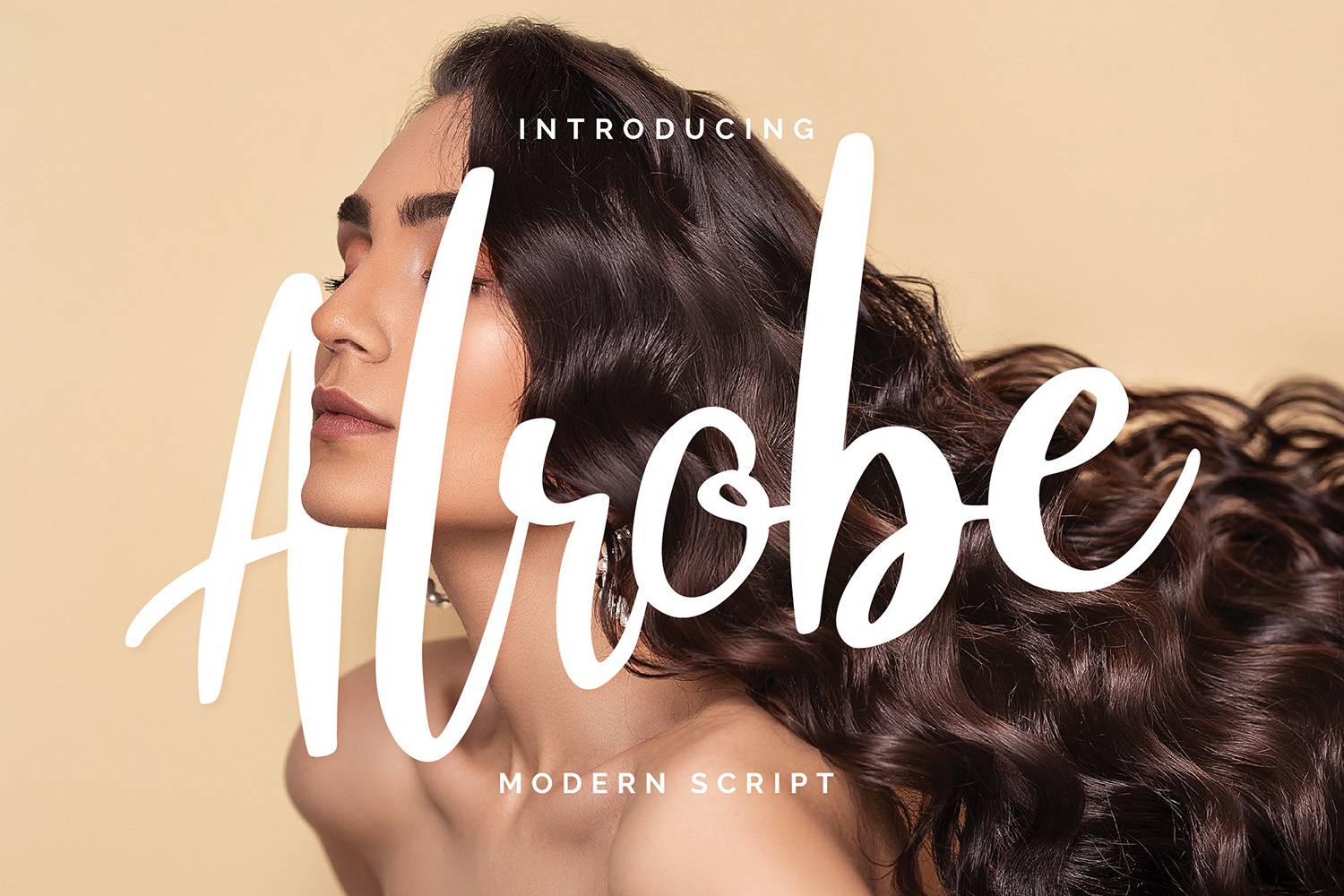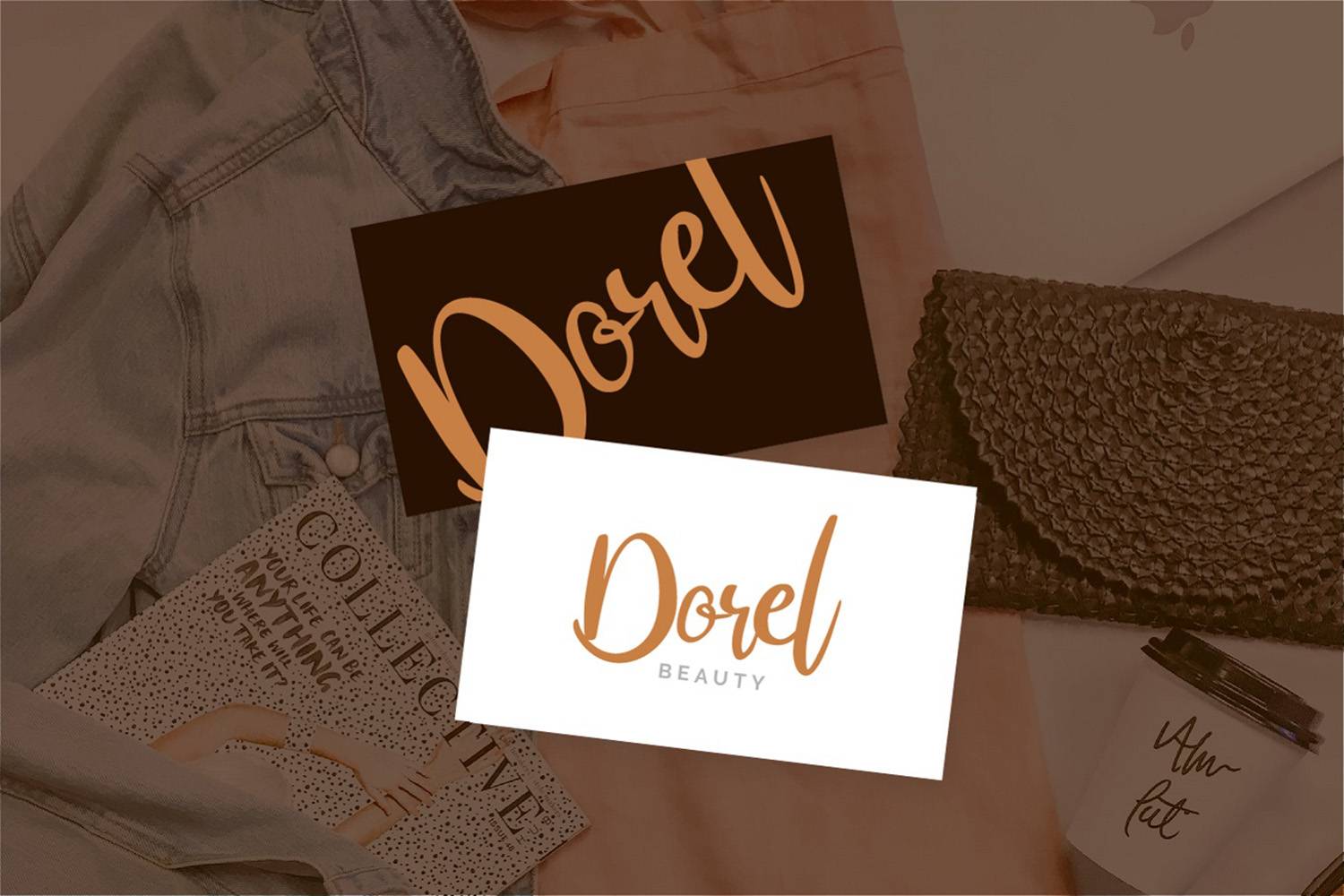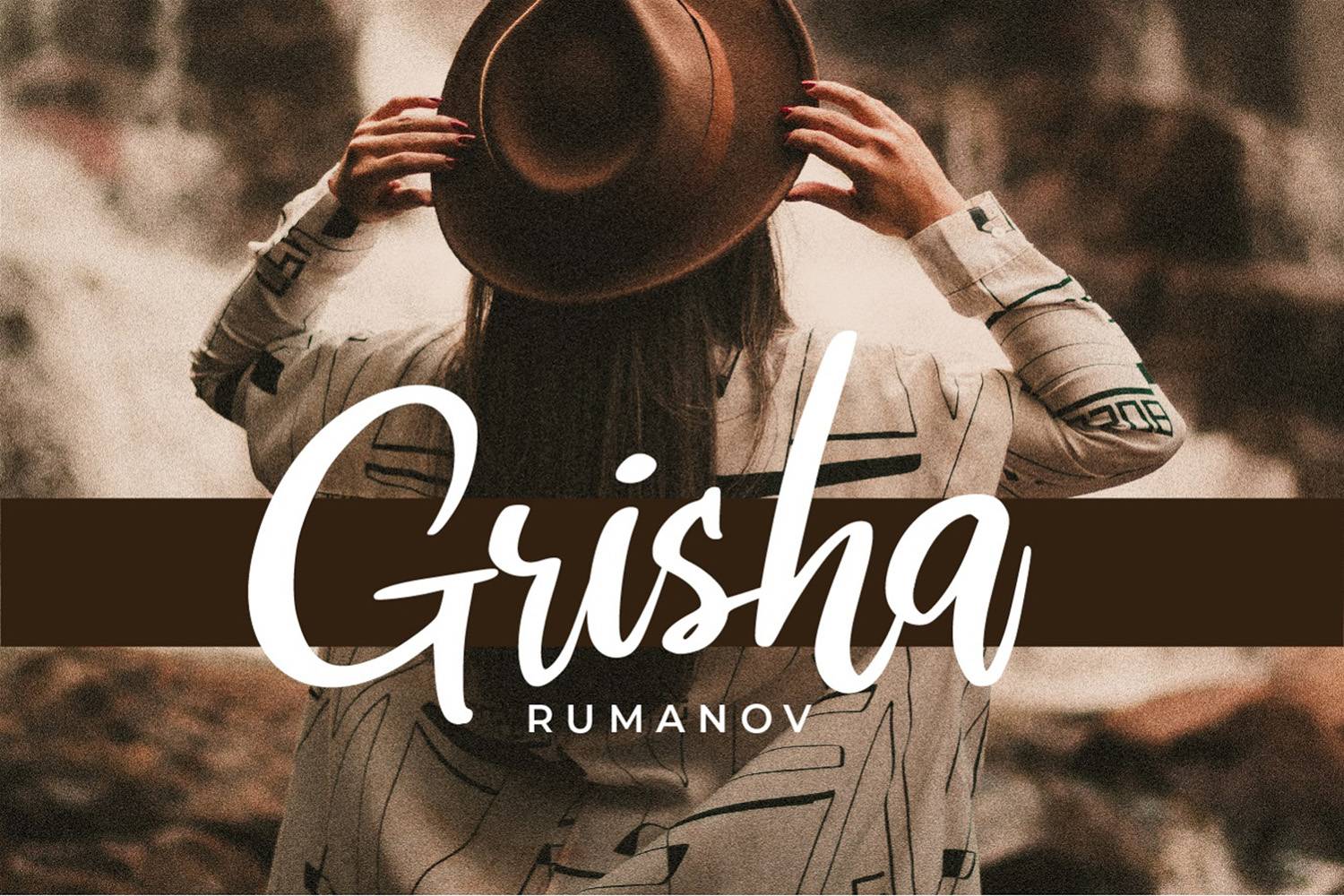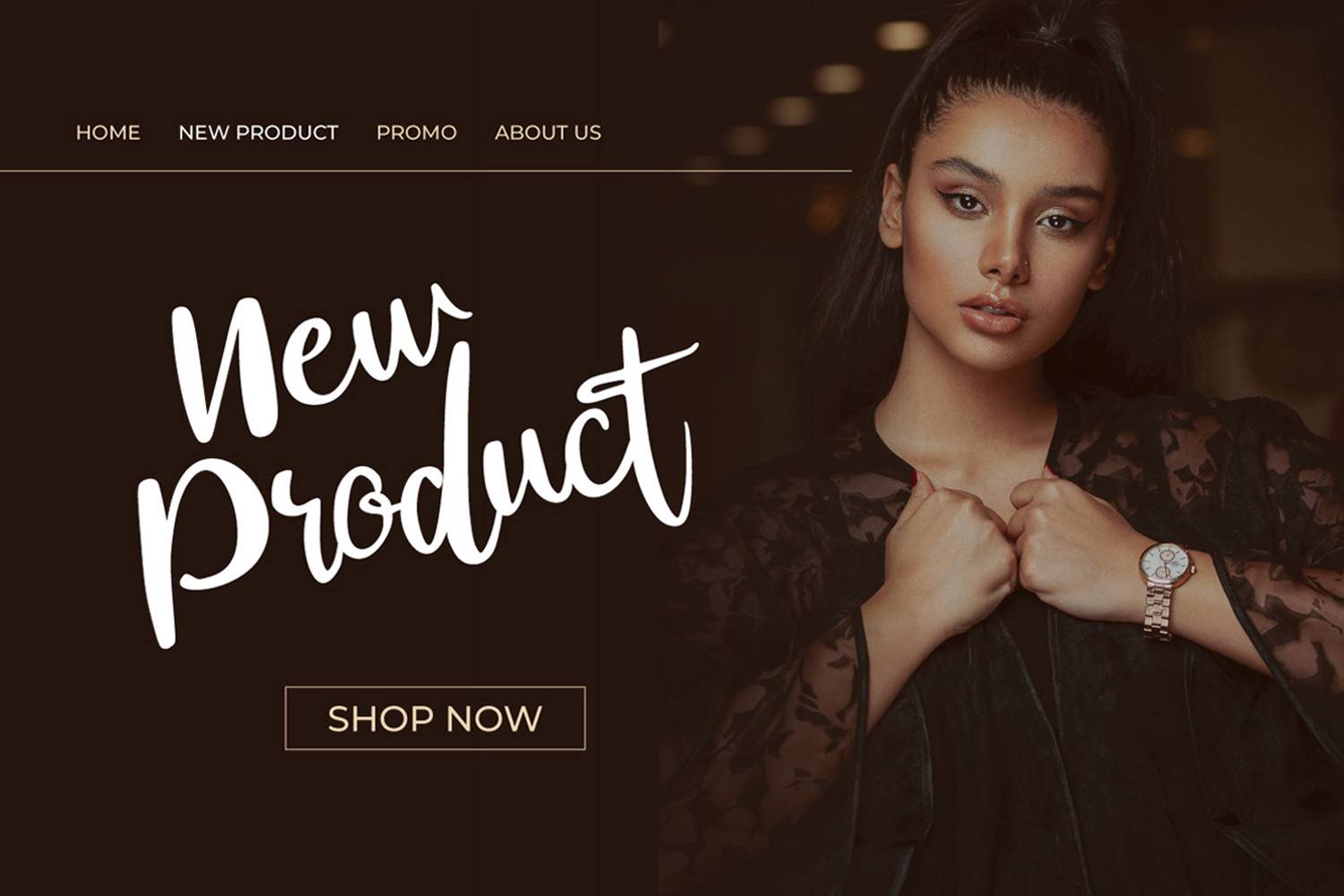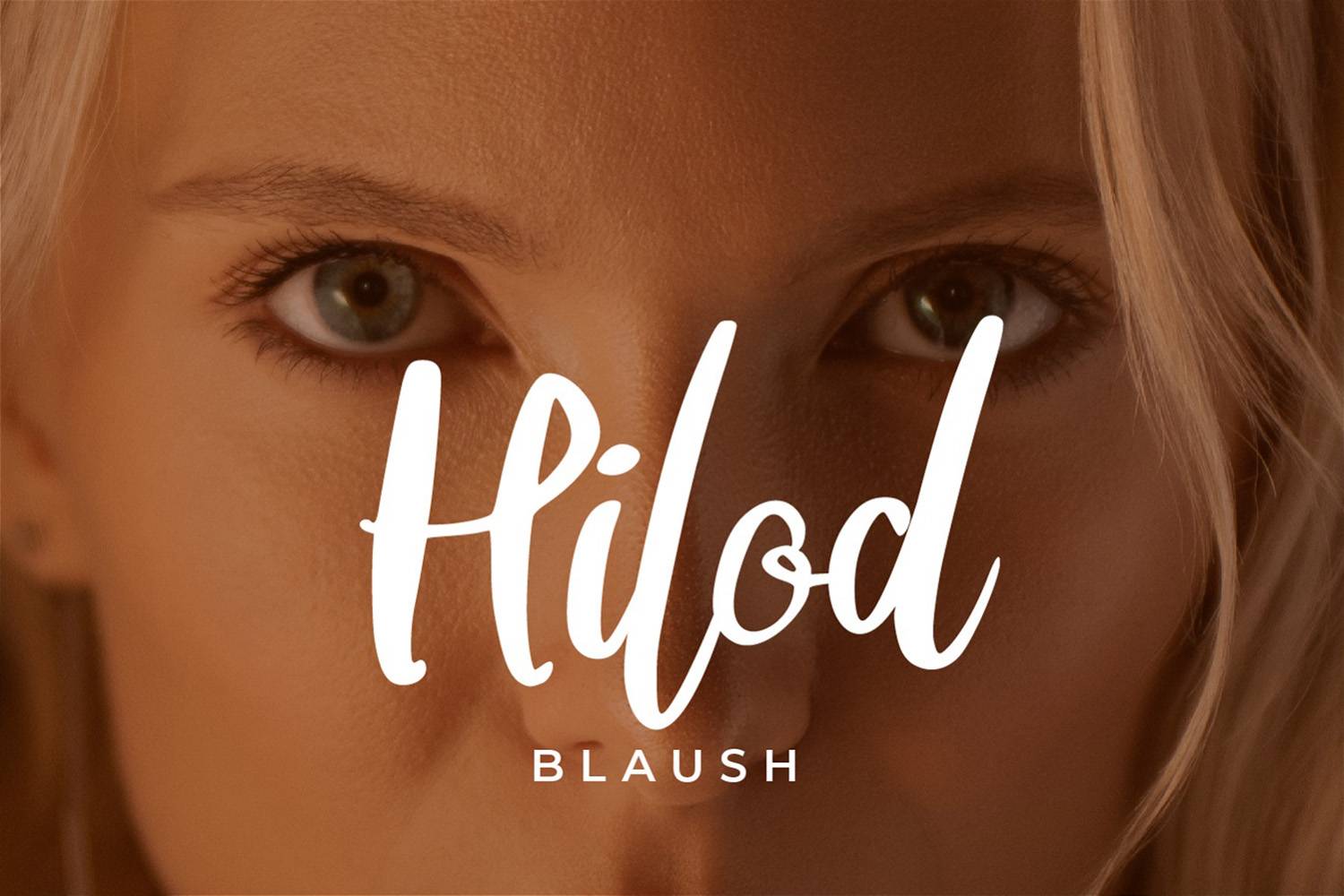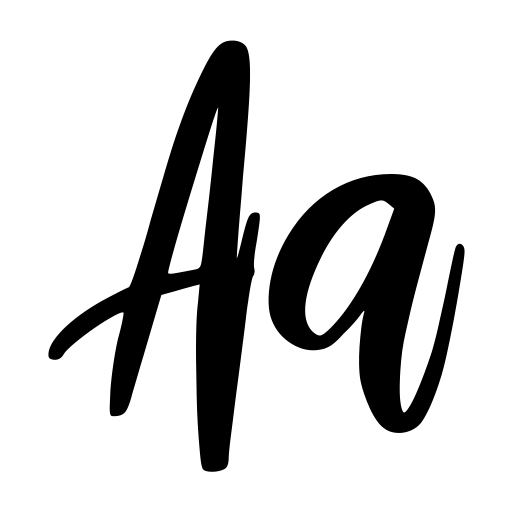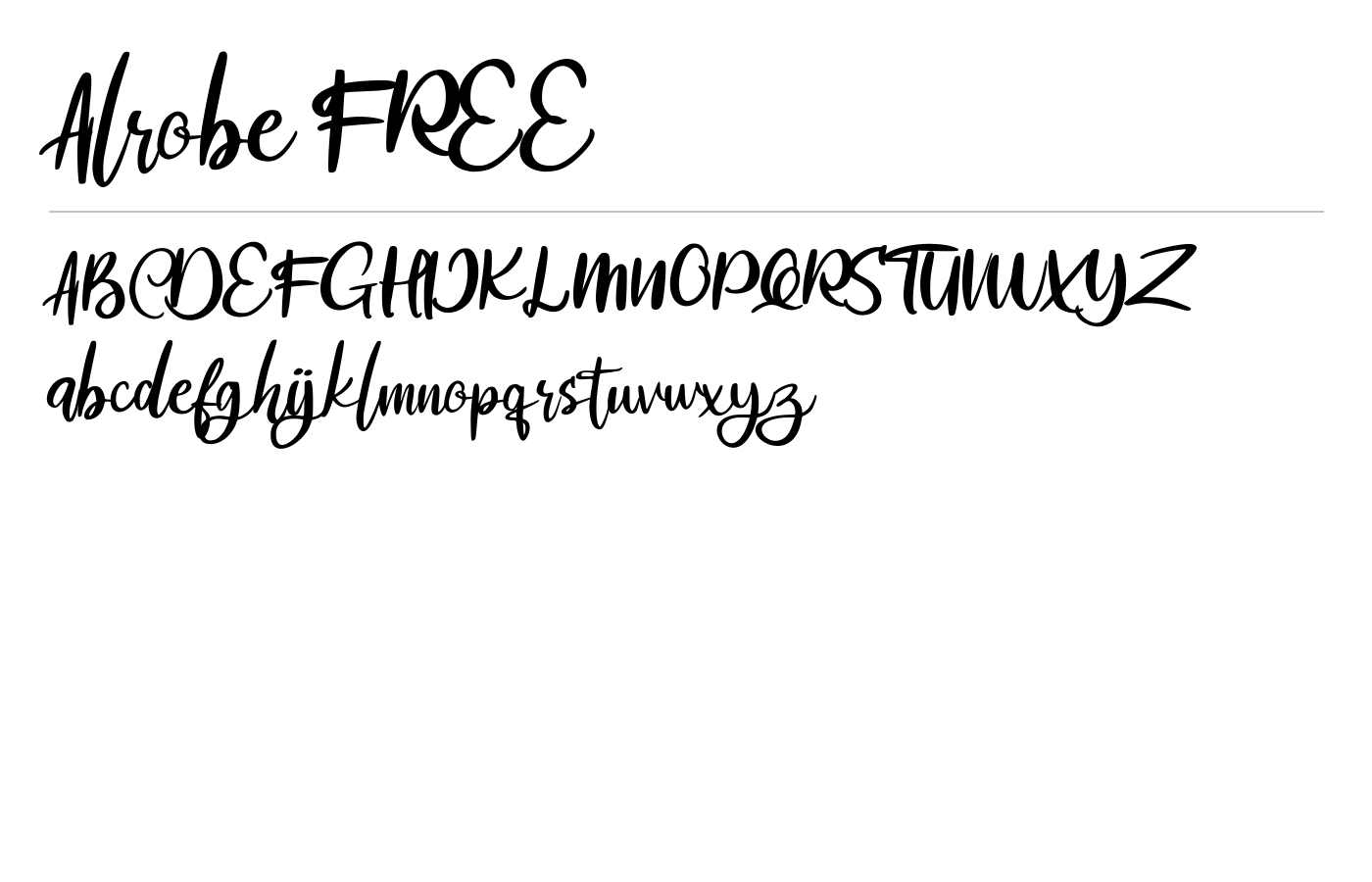
Alrobe is a lively and elegant script font featuring a hand-drawn, brush-like style with smooth, flowing strokes and medium contrast. Its friendly, casual yet refined character makes it ideal for branding, invitations, and creative projects seeking a personal touch with a modern vibe. This font shines in eye-catching headlines, logos, and designs that want to convey sophistication and warmth.
Alrobe Font
About Alrobe Font